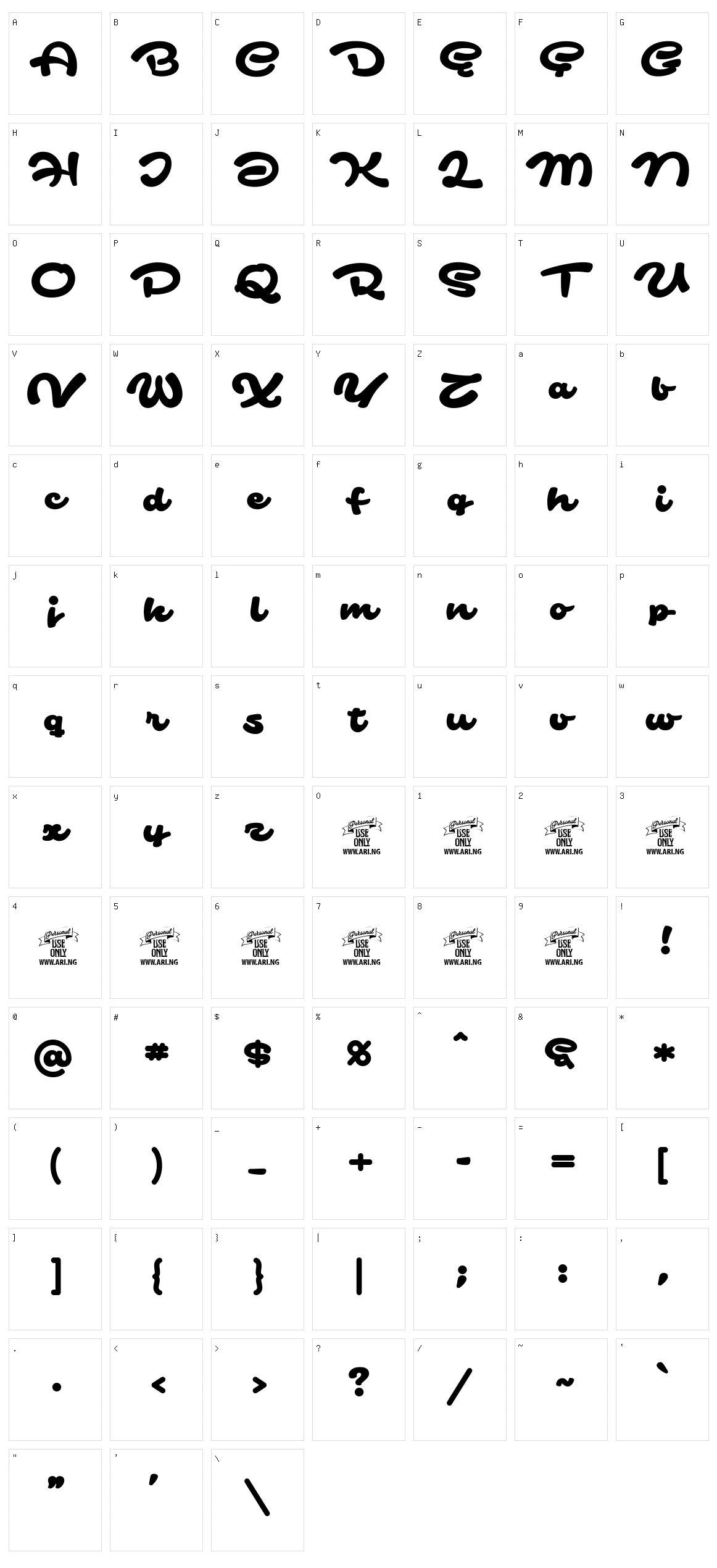
Safir Script is a happy typeface in high quality.
It has a vintage look, optimized for logos, titles and slogans.
The font supports hundreds of languages.
It contains contextual alternates, swashes and ligatures.
Write % followed by a number (0-9) to make swashes!
Example: Safir%1